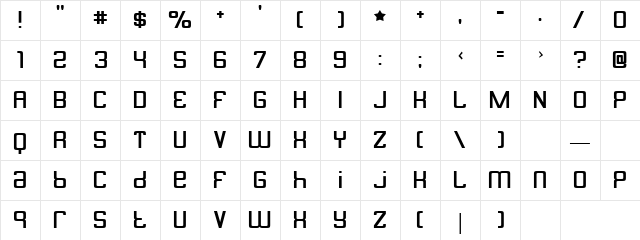
Butterbelly Regular
Design Context for Butterbelly Typeface
Butterbelly takes a measured approach to typography — its balanced proportions and neutral character make it a reliable workhorse for both digital and print work.